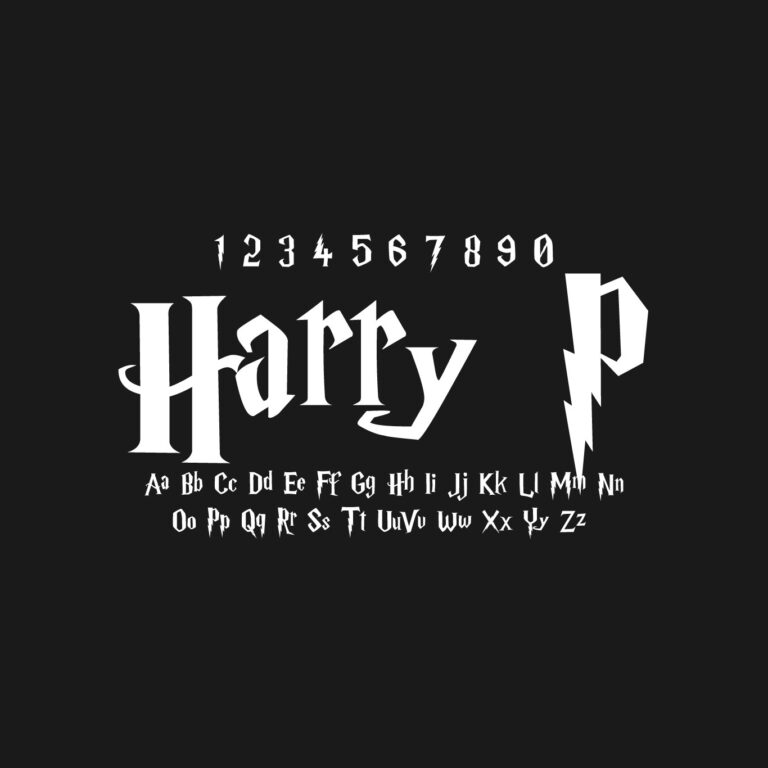
Download Harry P in TTF format — the fan-made font that has become the internet’s default answer to “what’s the Harry Potter font?” With over 8 million downloads on DaFont alone, it’s one of the most downloaded fan-created typefaces ever made.
Harry P is a jagged, whimsical display serif with irregular character heights, sharp expressive strokes, and the unmistakable lightning-bolt detailing on letters like “H” and “P.” It’s built for fantasy book covers, themed party invitations, event posters, fan projects, scrapbooking, vinyl cutting, and any design that needs a touch of wizarding-world atmosphere.
Where Harry P Came From
The lettering on the Harry Potter book covers and film logos was custom-drawn — there has never been an official, publicly available Harry Potter font. Harry P exists to fill that gap. Australian type designer Graham Meade, working under his GemFonts / Typotheticals label, created it around 1999–2000, reconstructing the style from just a handful of letters scanned off the cover of Harry Potter and the Philosopher’s Stone. By Meade’s own description it was “a rather rough interpretation” built from limited source material — he even documented which alternate characters to type to recreate the book cover’s exact “Potter” lettering, since the original logo uses letterforms that don’t map neatly onto a standard keyboard.
Rough interpretation or not, the font spread everywhere. Because it was free while the official lettering never existed as a font, Harry P became the de facto standard for fan-made Potter designs across two decades of invitations, posters, YouTube thumbnails, and craft projects. Meade built several other Potter-inspired typefaces alongside it — Dumbledor, a medieval-flavored display family, and A Charming Font among them — but Harry P remains by far his most downloaded work.
Font Name: Harry P
Font Type: Display / Decorative Serif
Visual Style: Magical, jagged, whimsical, fantasy-themed
Best For: Fantasy titles, themed invitations, posters, fan projects, crafts and vinyl cutting
Designer: Graham Meade (GemFonts / Typotheticals)
Released: ~2000